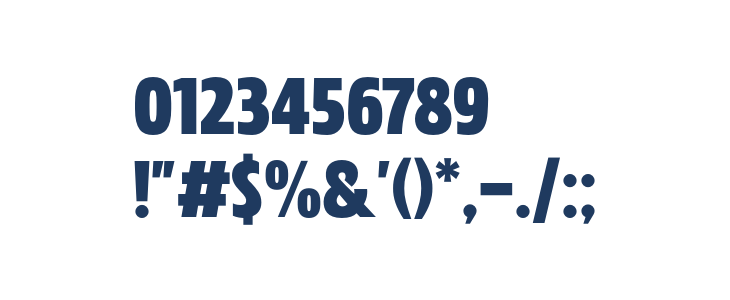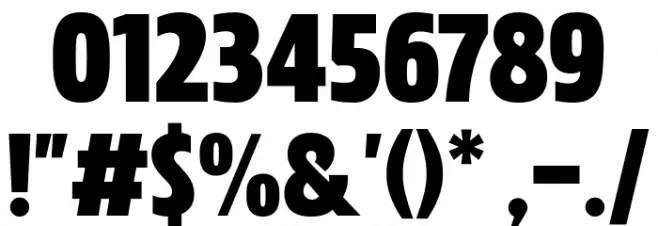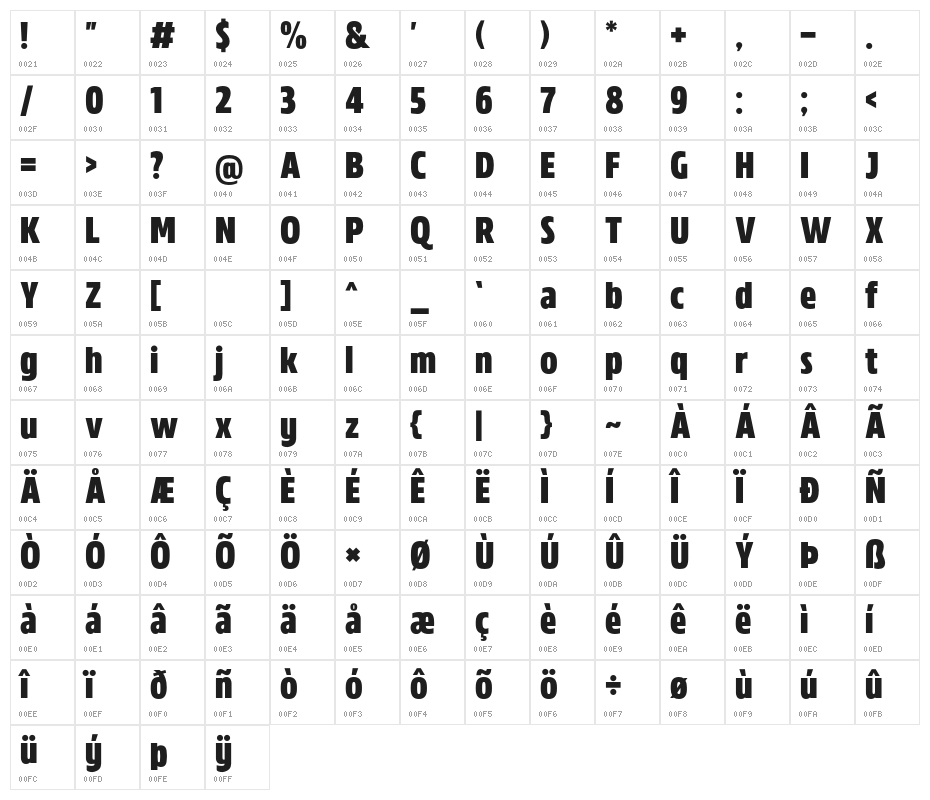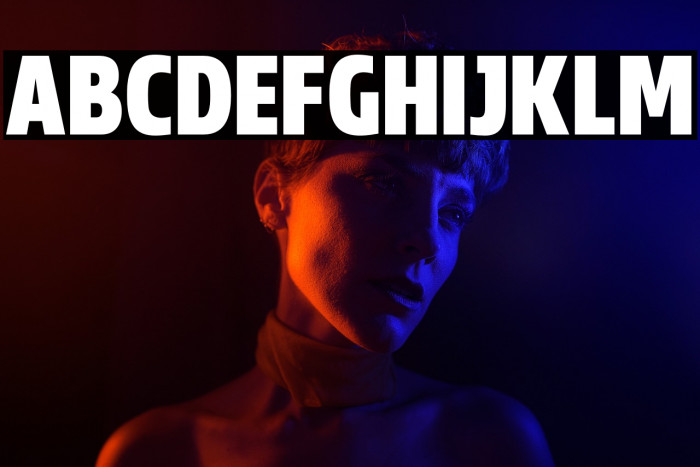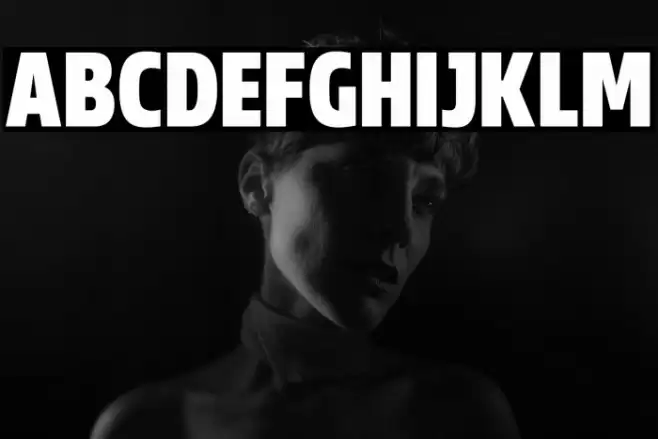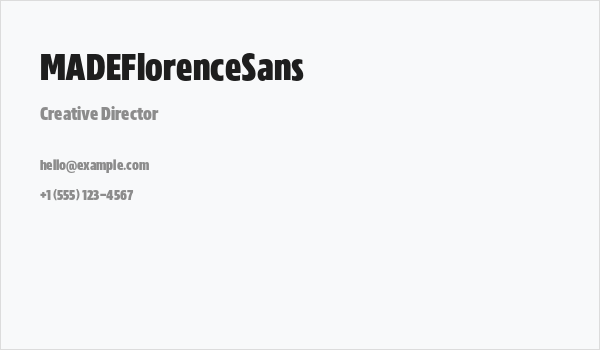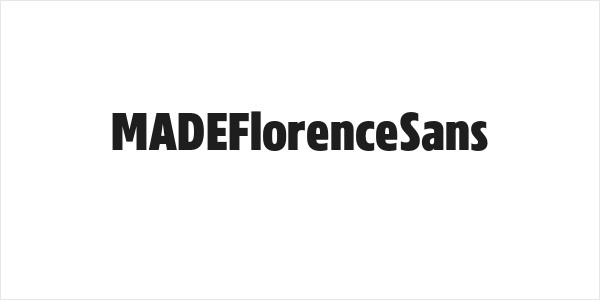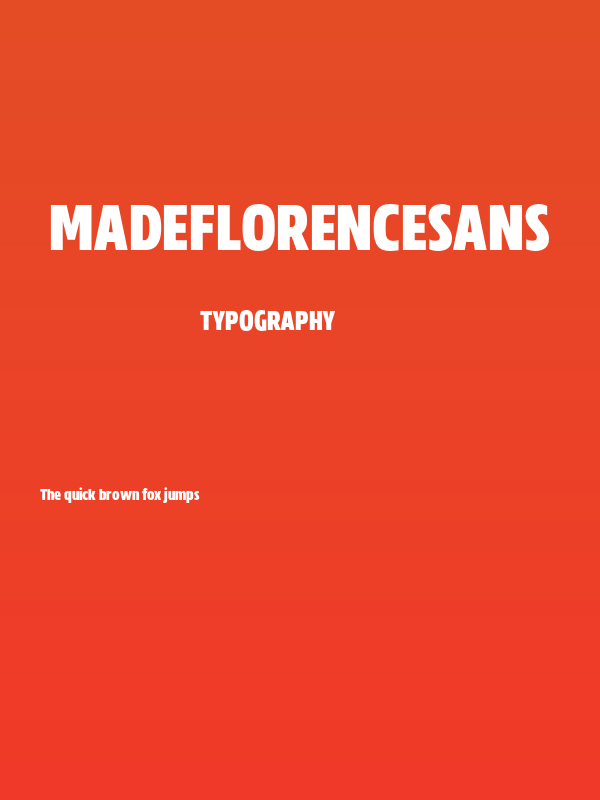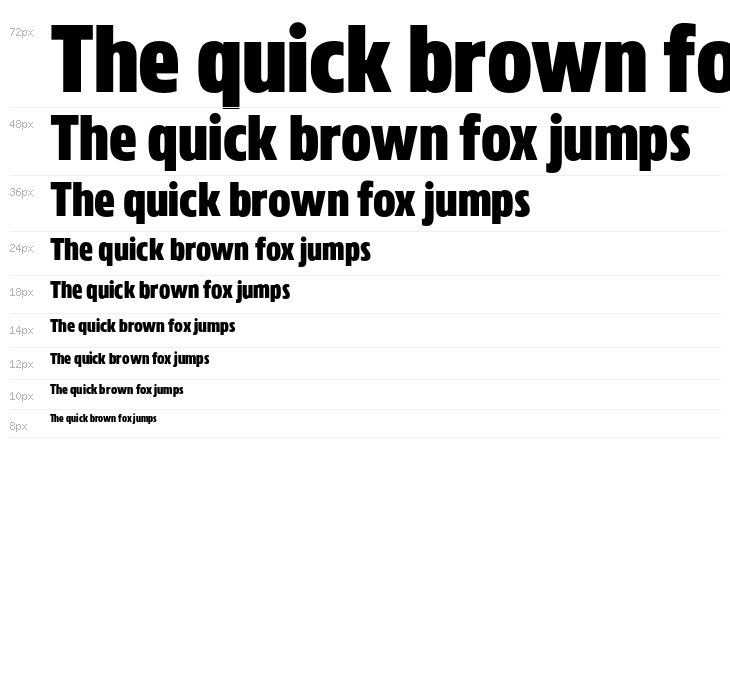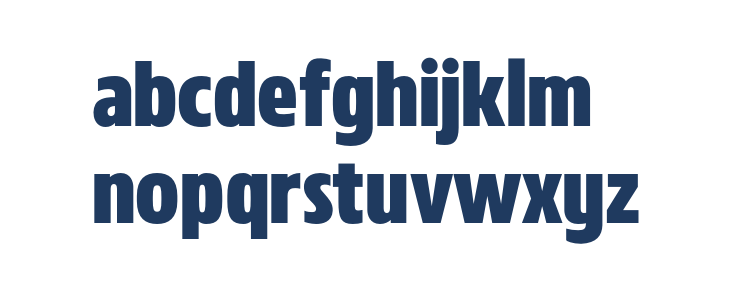
MADEFlorenceSans Font
MADEFlorenceSans Description
This font features a bold and assertive sans-serif style, characterized by its strong, clean lines and modern aesthetic. The uppercase letters are robust and commanding, while the lowercase letters maintain a consistent weight, offering a harmonious balance. The numerals are equally bold, ensuring readability and impact. Special characters are designed with the same boldness, making them stand out effectively. The overall design is versatile, suitable for a variety of applications where clarity and emphasis are required.
Use CaseHeadlines, Logos, Advertising
Proposed ProjectsIdeal for branding, advertising, headlines, and digital media where a strong visual impact is needed.